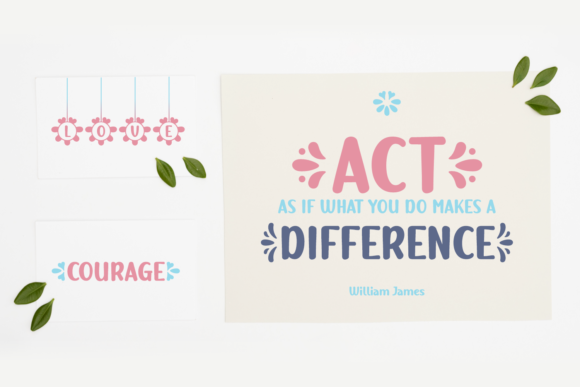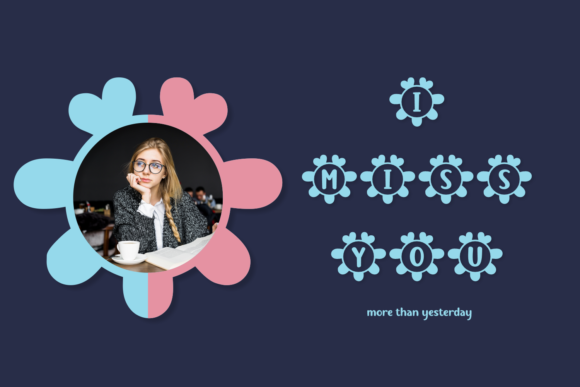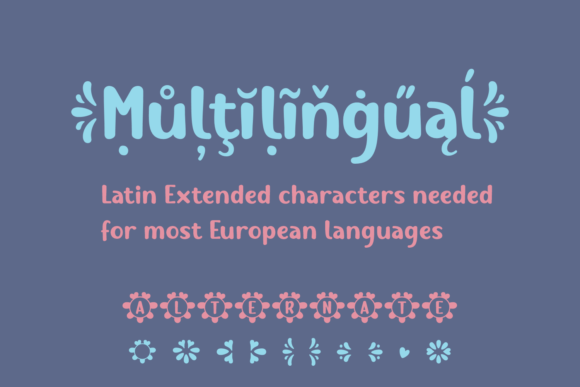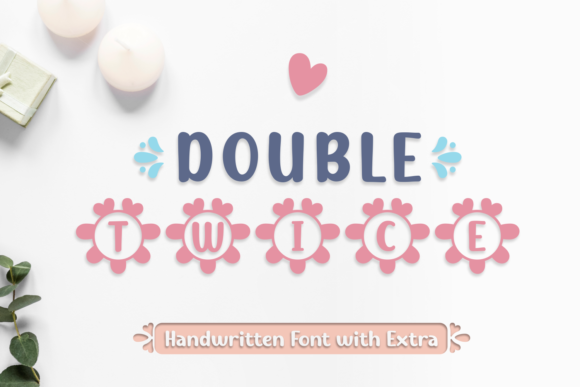
Discover the Charm of Double Twice Font: Elevate Your Designs with a Cute and Quirky Handwritten Style
Are you tired of using the same old fonts in your designs? Look no further than the Double Twice Font, a delightful and quirky handwritten font that’s sure to add a touch of personality to your projects. With its natural and unique style, Double Twice is incredibly versatile and can be used in a wide range of designs, from playful crafts to sophisticated branding materials.
The Unique Charm of Double Twice Font
Double Twice Font is a one-of-a-kind typeface that boasts a charming, hand-crafted feel. Its irregularities and quirks give it a warm, organic look that’s reminiscent of handwritten text. This font is perfect for designers and crafters who want to add a personal touch to their work, creating a sense of connection with their audience.
The beauty of Double Twice Font lies in its incredible versatility. Whether you’re working on a:
- Playful craft project, such as a handmade card or scrapbook page
- Branding campaign, including logos, business cards, and letterheads
- Digital design, like a website, social media graphic, or email newsletter
- Stationery set, including journals, planners, and stickers
Double Twice Font is sure to bring a fresh and exciting element to your design. The only limit is your imagination!
Key Features of Double Twice Font
So, what makes Double Twice Font so special? Here are just a few of its key features:
- Handwritten style: Double Twice Font boasts a genuine, hand-crafted feel that’s perfect for adding a personal touch to your designs
- Unique character set: Each letter, number, and symbol has been carefully crafted to ensure a distinctive, one-of-a-kind look
- Natural and organic: The font’s irregularities and quirks give it a warm, organic feel that’s perfect for creating a sense of connection with your audience
- Highly versatile: Double Twice Font can be used in a wide range of designs, from playful crafts to sophisticated branding materials
Tips for Using Double Twice Font
To get the most out of Double Twice Font, here are a few tips to keep in mind:
- Experiment with sizes and colors: Double Twice Font looks great in a variety of sizes and colors, so don’t be afraid to get creative and try out different combinations
- Mix and match with other fonts: Double Twice Font pairs well with a range of other fonts, so feel free to experiment with different combinations to create a unique look
- Use it to add personality to your designs: Double Twice Font is all about adding a personal touch to your designs, so don’t be afraid to let your personality shine through